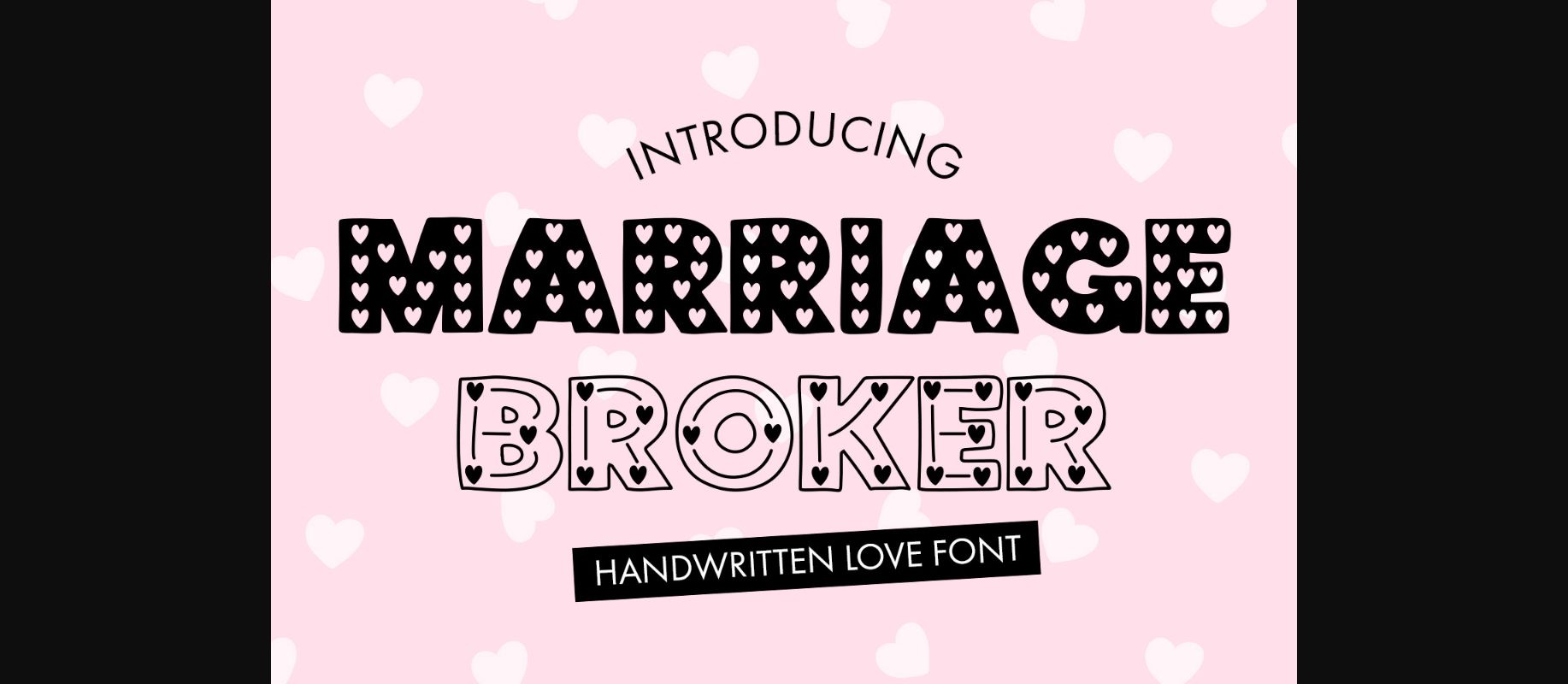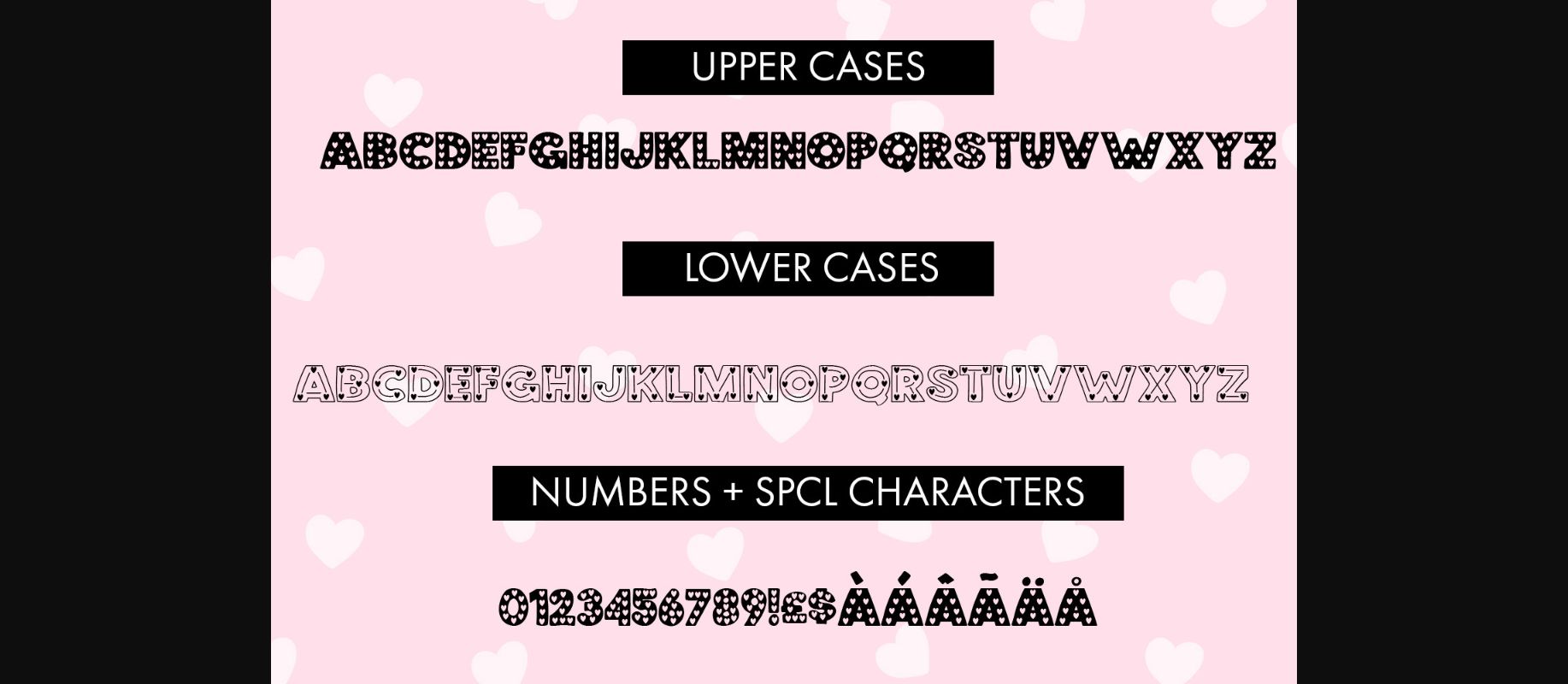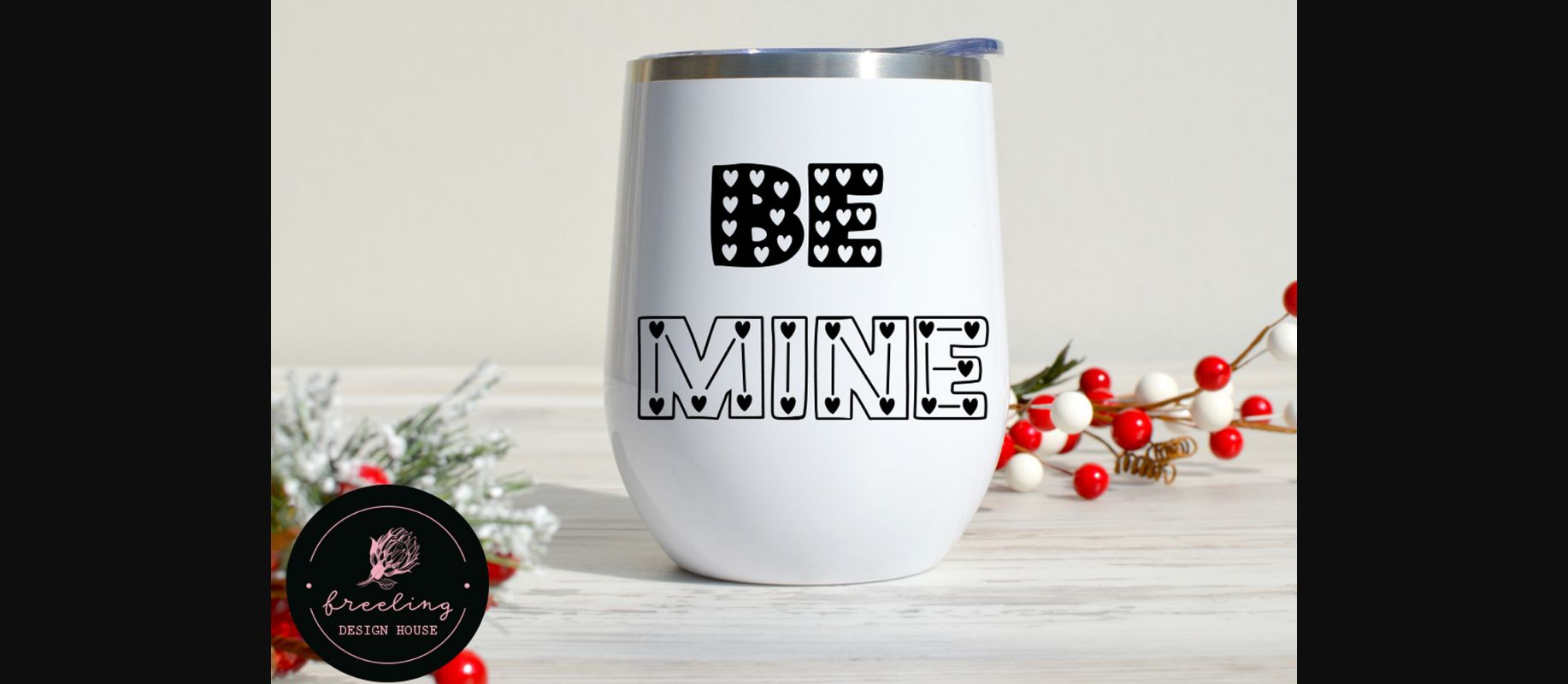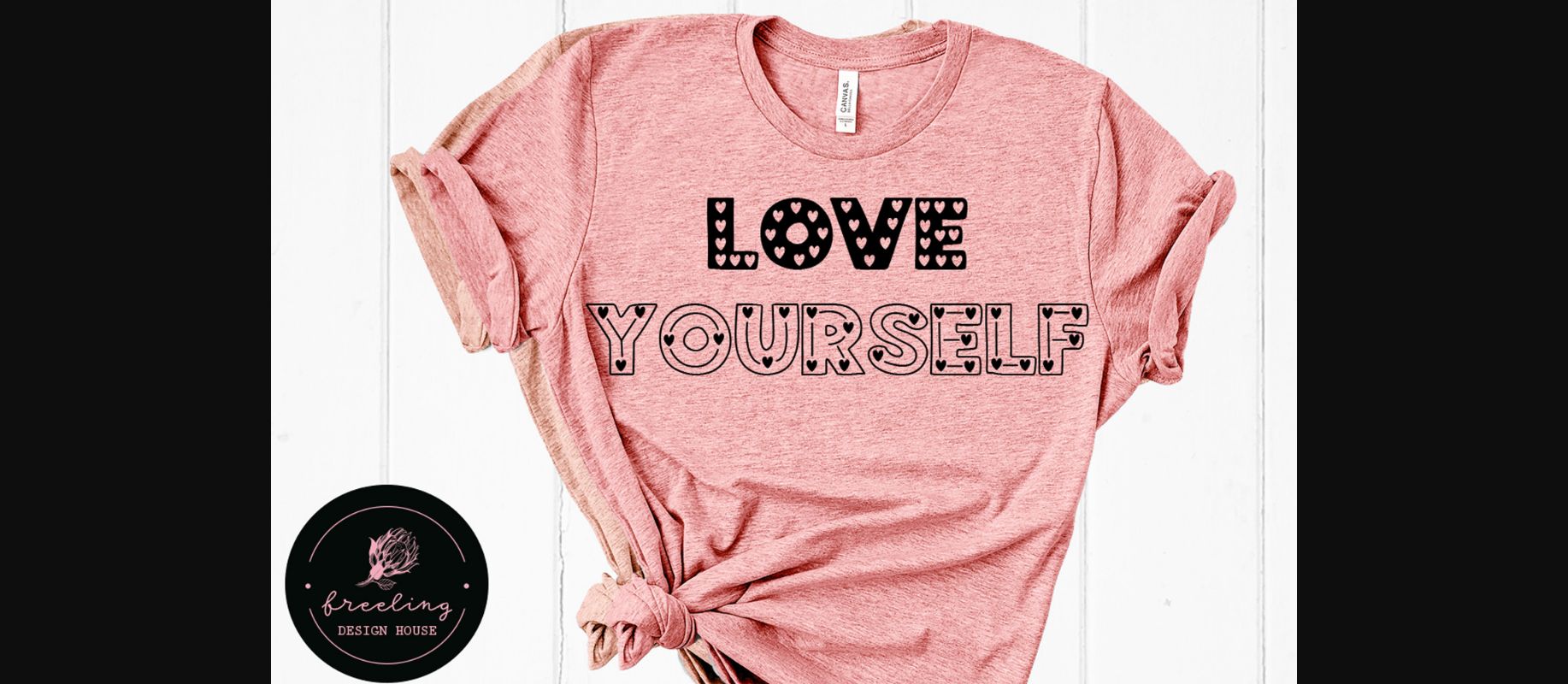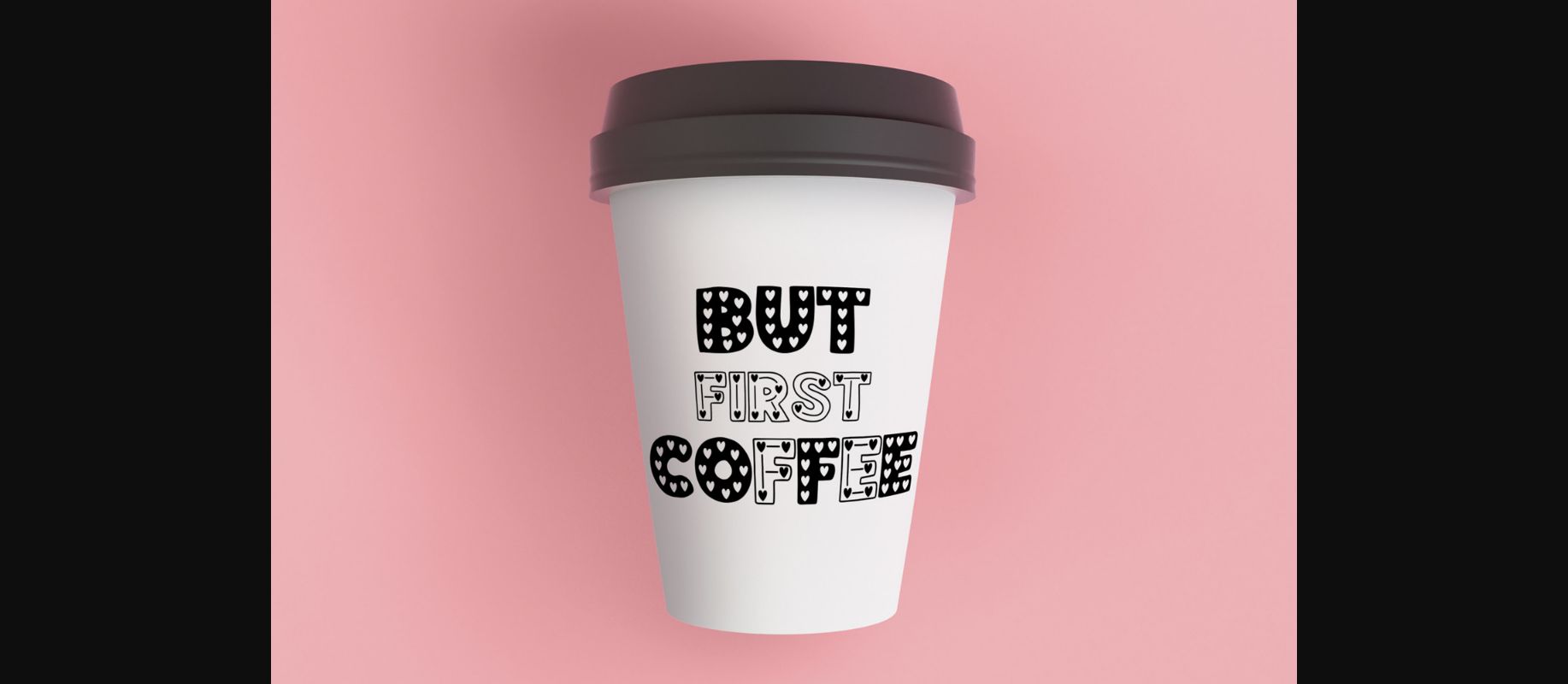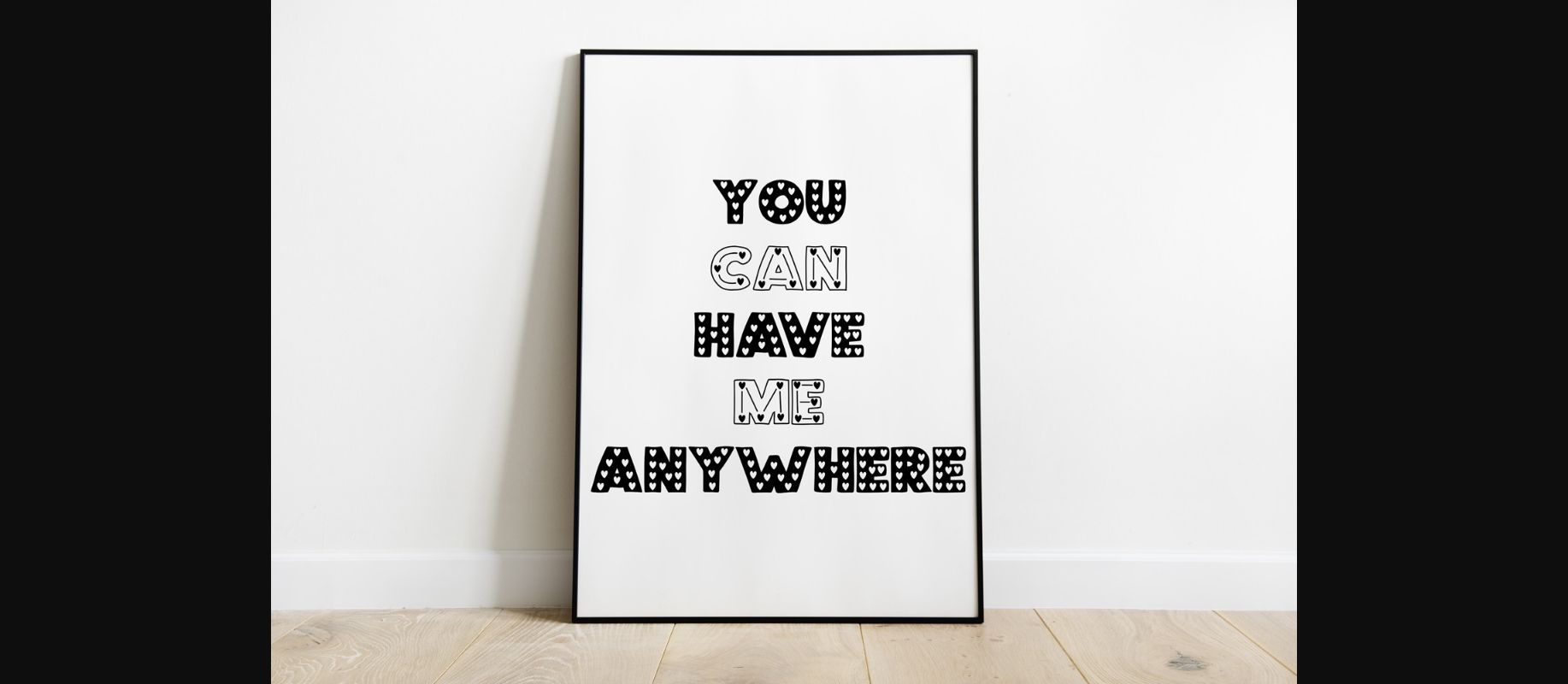
Marriage Broker is a thick lettered and fun looking decorative font. Add it confidently to your favorite creations and let yourself be amazed by the outcome generated.